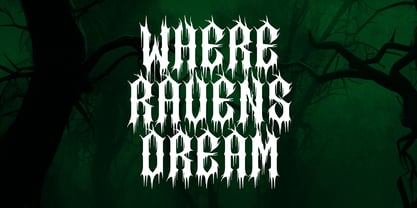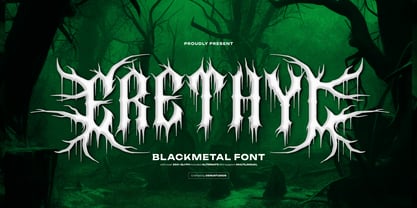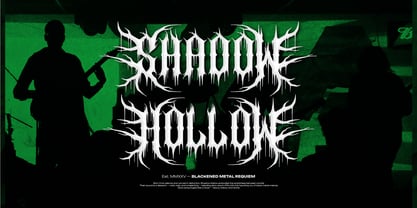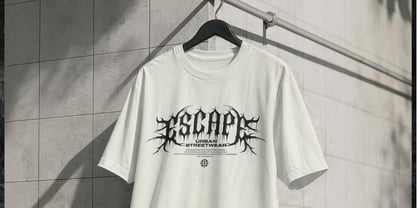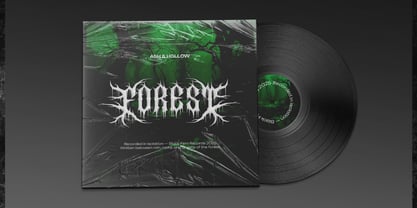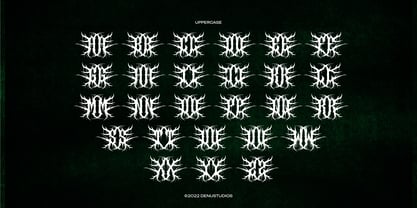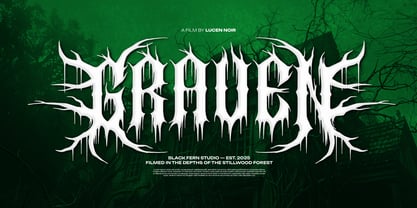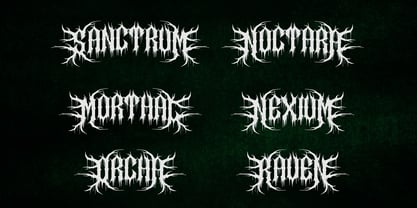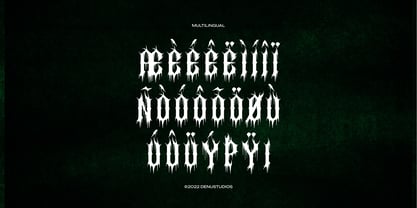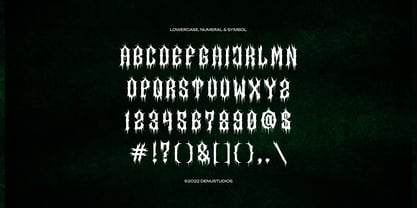
Erethyl
The Erethyl Font Family was designed by Dede Nugraha and published by Denustudio. Erethyl contains 1 styles. More about this family
Erethyl | Black Metal Font, from Denustudios, suitable for any projects such as: logos, branding projects, homeware designs, product packaging, mugs, quotes, posters, shopping bags, t-shirts, book covers, name card, invitation cards, greeting cards, label, photography, watermark, special events, and all your other lovely projects that need  Blackletter a taste.